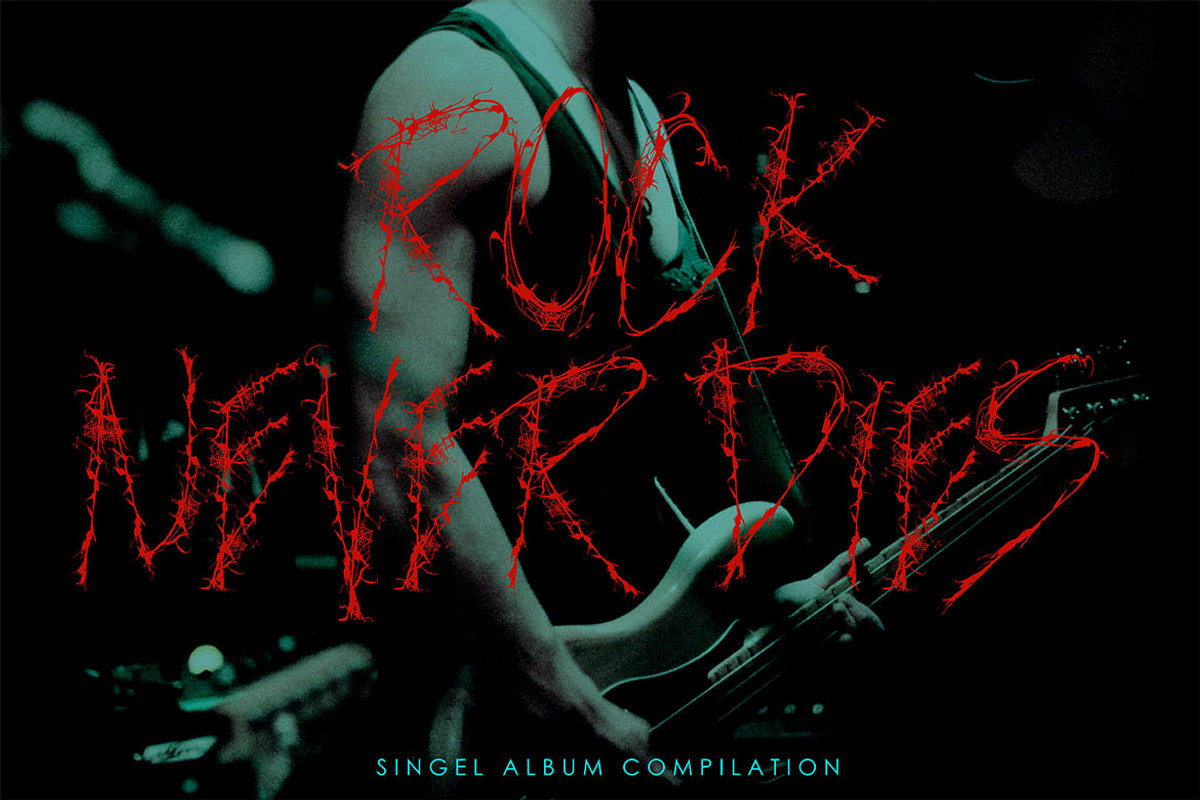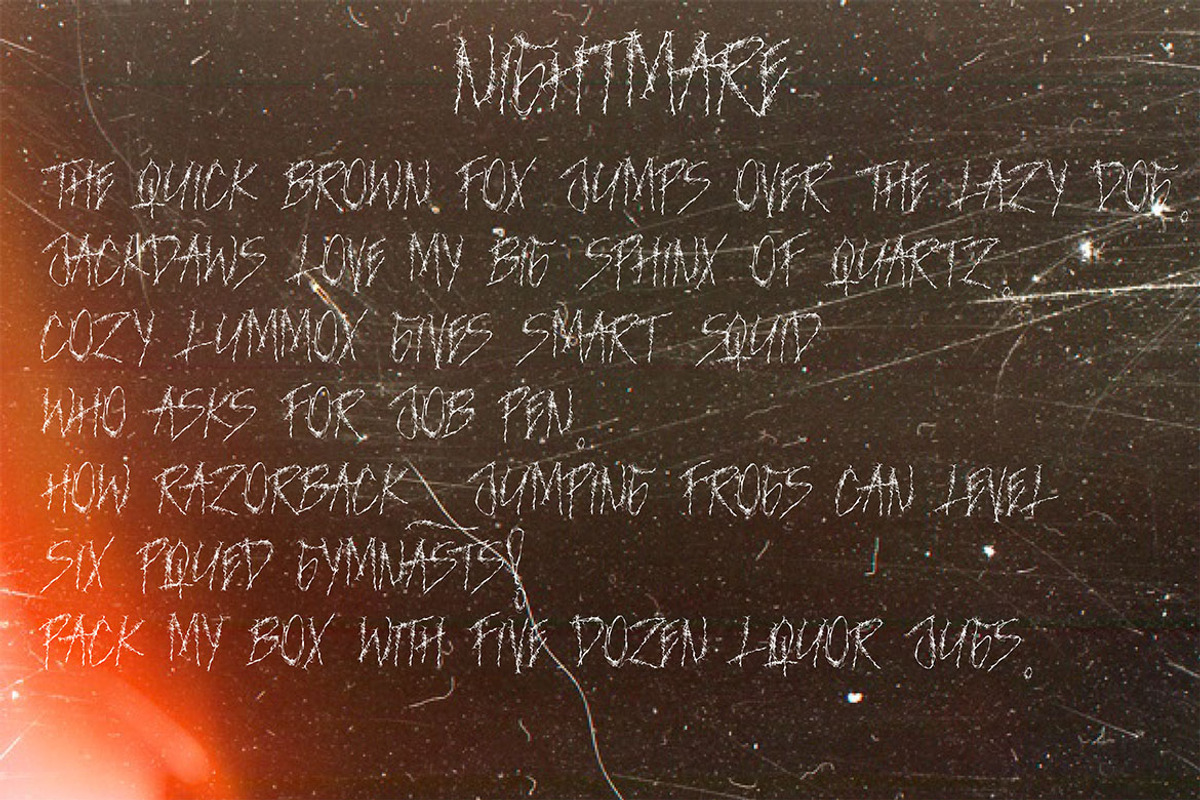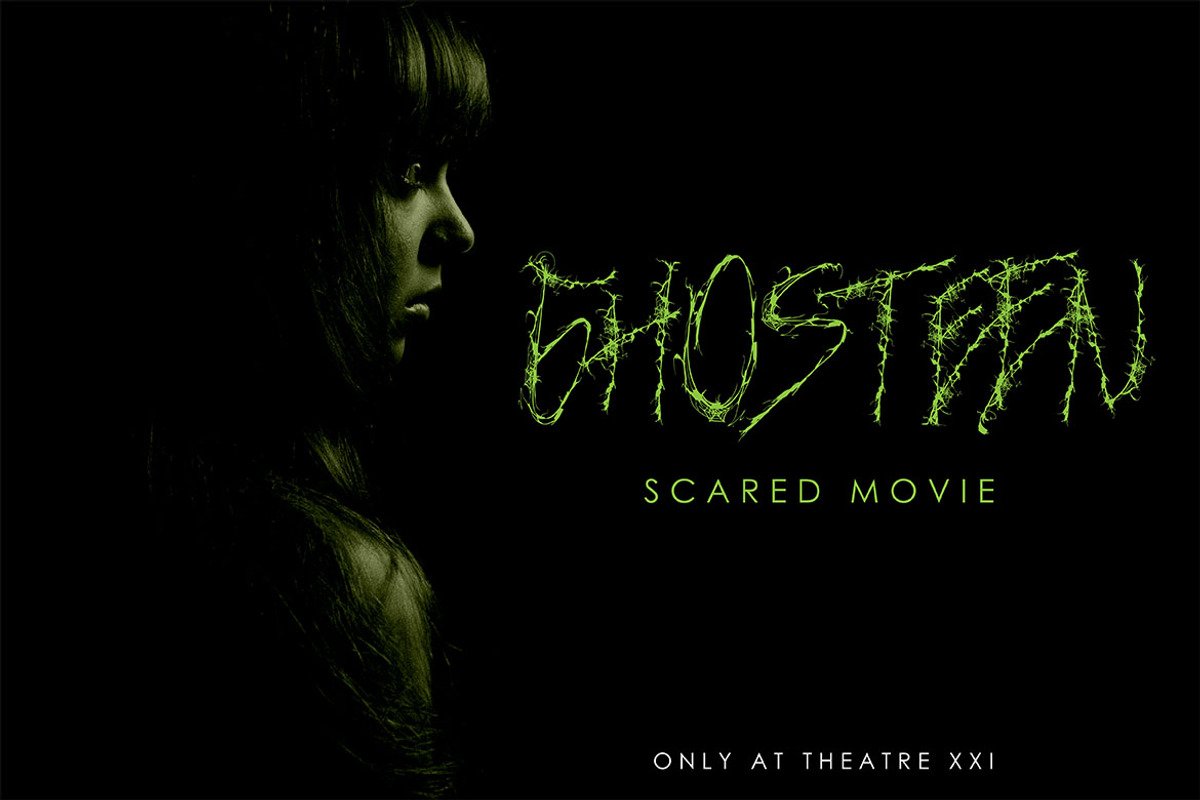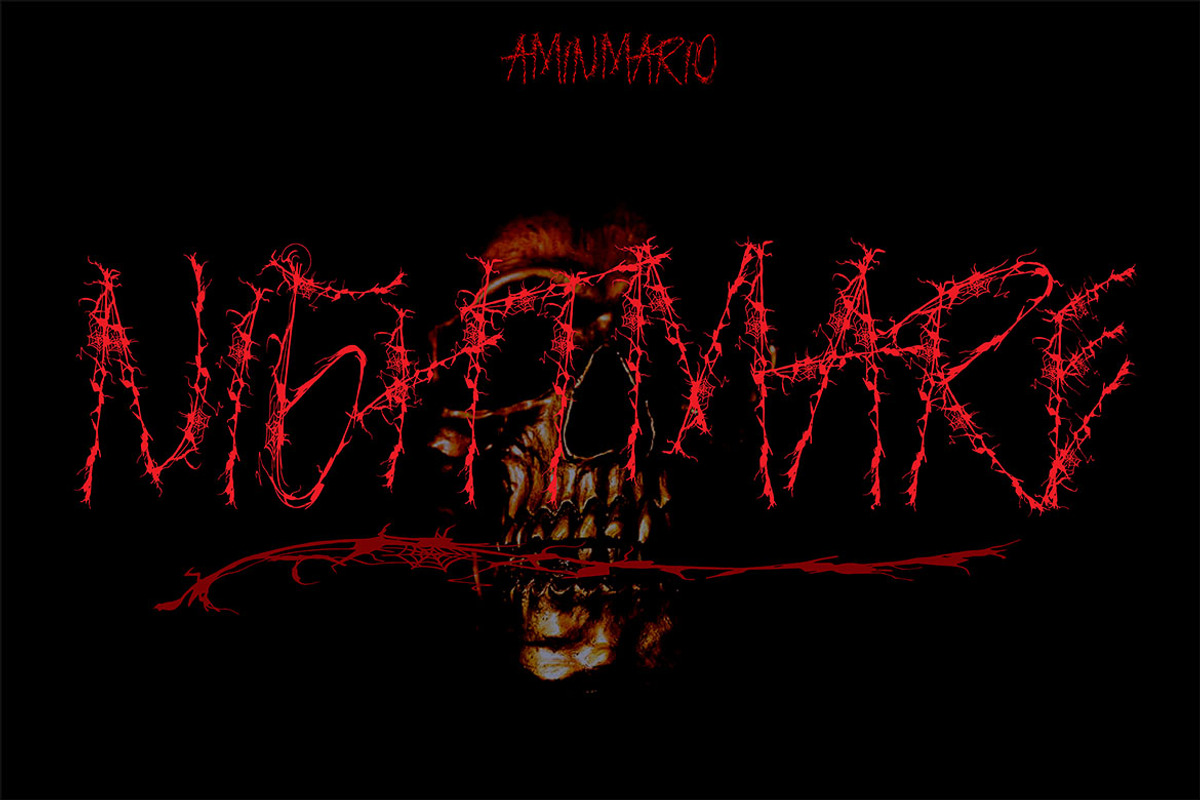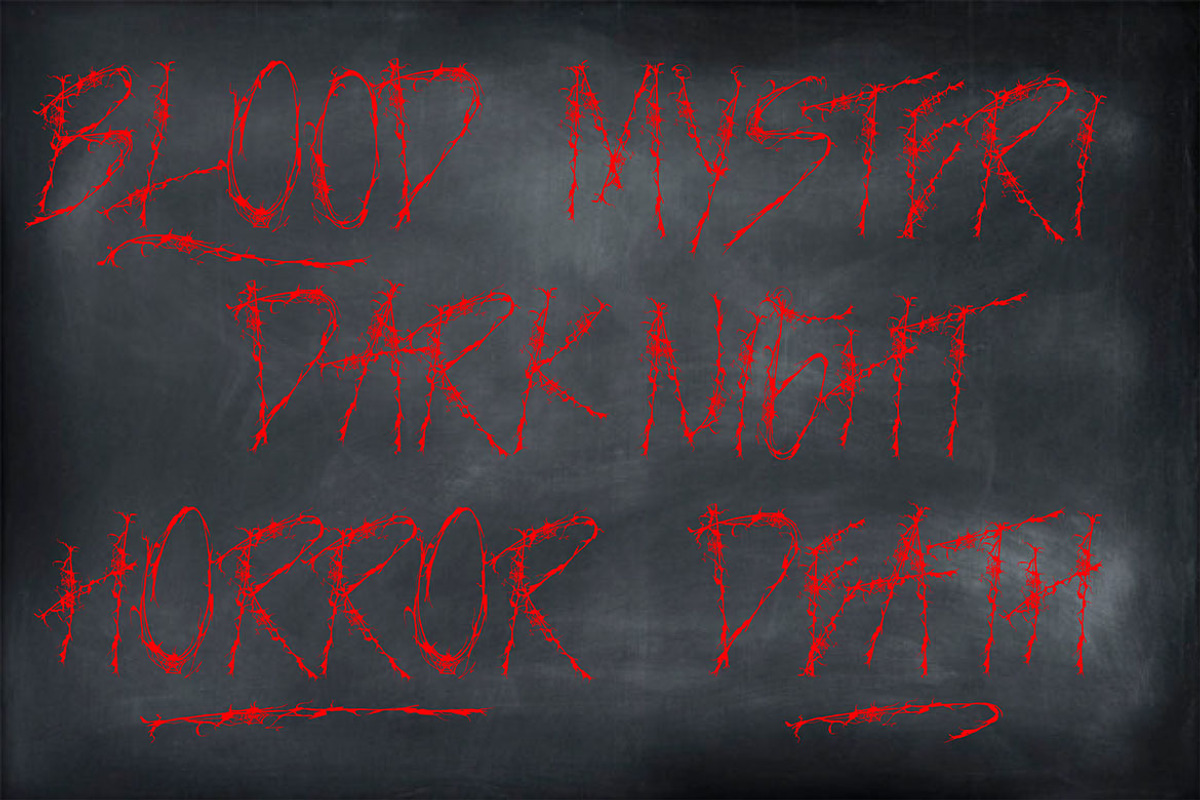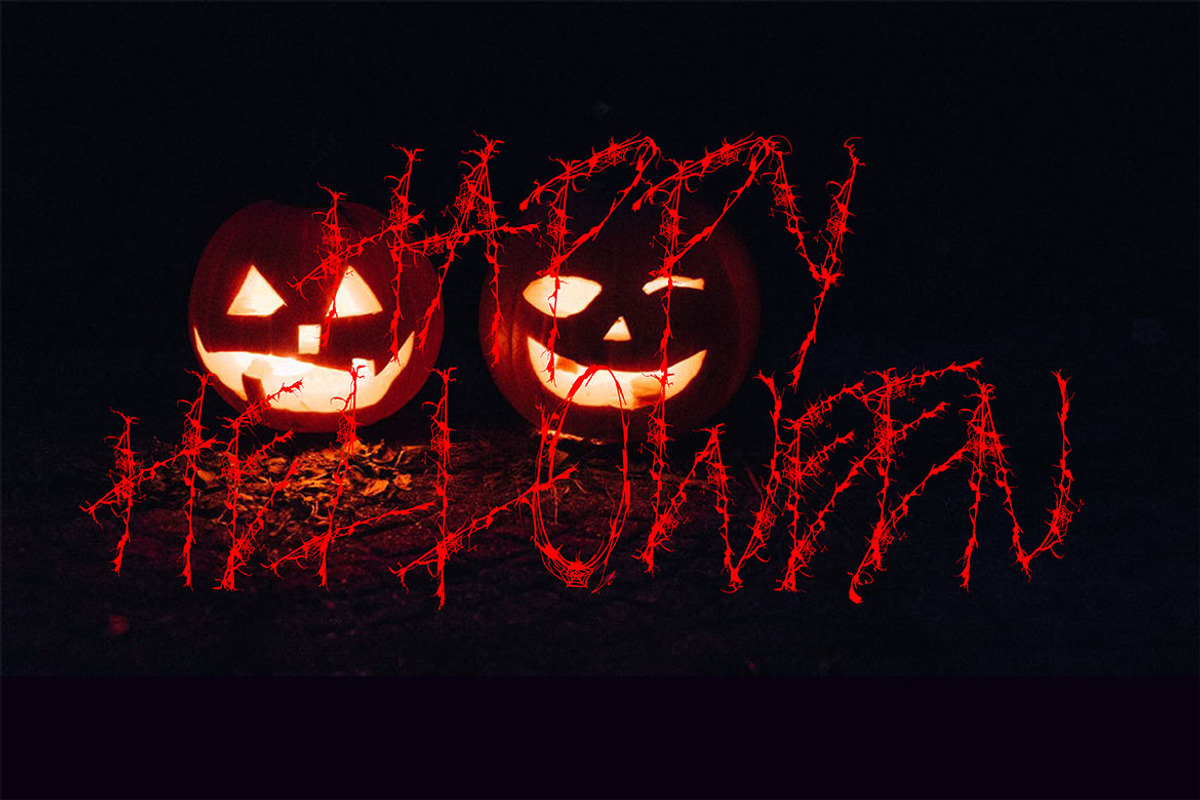
NIGHTMARE | HORROR FONT
Introducing NIGHTMARE Font
NIGHTMARE is inspired by the combination of Horror, DeathMetal, Underground and Spider. Of course, each letter is designed to be powerful so it looks powerful.
Perfect for logos, professional horror design, flyers / posters, branding, packaging, t-shirts, labels, album covers, hardcore, etc.
NIGHTMARE comes with an ALL CAPS characters, numbers and some of punctuation. And to complete the horror we bring you a Ligature and swash / under lines.
Why NIGHTMARE | HORROR FONT is worth a look
NIGHTMARE | HORROR FONT by AMINMARIO fits naturally into Branding, posters, packaging, typography.